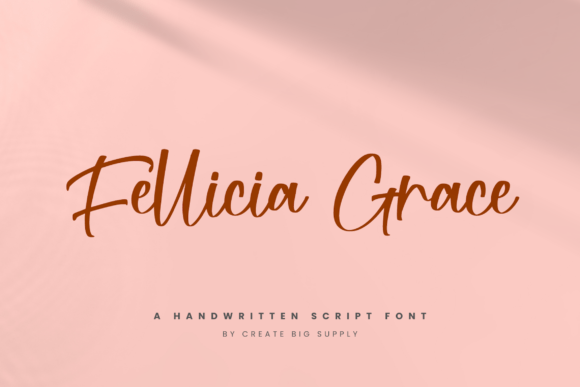
Unveil your creative signature with Fellicia Grace Font, a striking script typeface that captures the essence of elegance and charm. Designed by the talented artists at Create Big Supply, this font is meticulously crafted to elevate your designs with its natural and graceful strokes.
Dive into the world of exquisite typography and let Fellicia Grace transform your creative projects. This signature handwriting font adds a personal touch to your invitations, branding, and personal projects, making them captivating and memorable. Its beautiful, flowing characters emulate the charm of a handwritten note, bringing a touch of warmth and authenticity to your designs.
Fellicia Grace is not just a font; it's an artistic expression that reflects the unique beauty of the human touch. Each letter is carefully designed to flow seamlessly, creating a harmonious visual rhythm that draws the eye. Whether you're a seasoned designer or just starting out, this font is incredibly easy to use. Experience the joy of crafting stunning typography with minimal effort, allowing you to focus on bringing your creative visions to life.
Fellicia Grace isn't just visually appealing; it's also highly versatile. Its elegant curves and delicate details add a touch of refinement to any project. Use it to create personalized logos, eye-catching headlines, or heartwarming quotes. The possibilities are endless, making Fellicia Grace a must-have for any creative toolbox.
So, unleash your creativity and let Fellicia Grace be the perfect muse for your next masterpiece. Embark on a typographic adventure where elegance meets authenticity. Download Fellicia Grace today and discover the boundless possibilities of handwritten artistry.